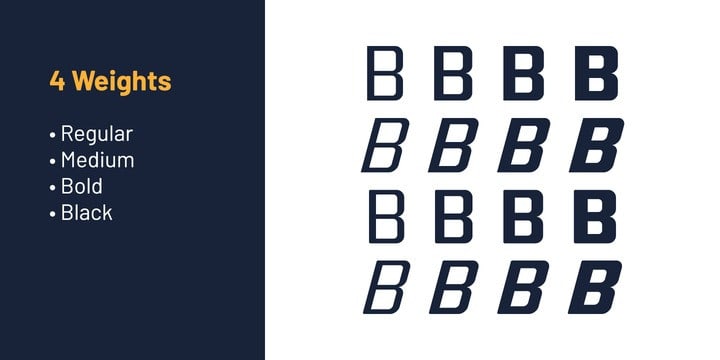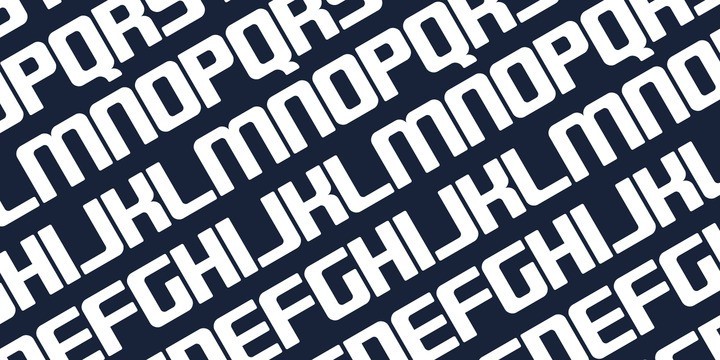
Quub Sans Serif Font is the perfect typeface for all your fun and minimalism designs. Every single character is designed considering a fixed ratio, all the glyphs are softened with round corners with manual corrections to the soft edges. The family has 16 fonts in condensed, normal and extended widths, 4 weights per width with matching true italics to achieve the upmost versatility.